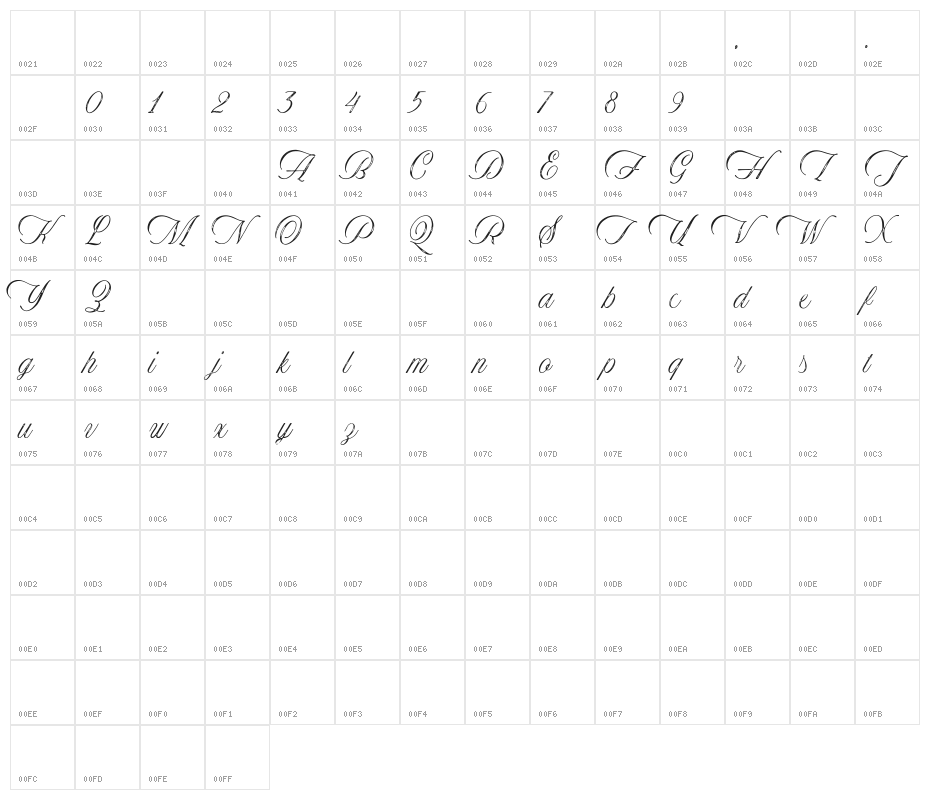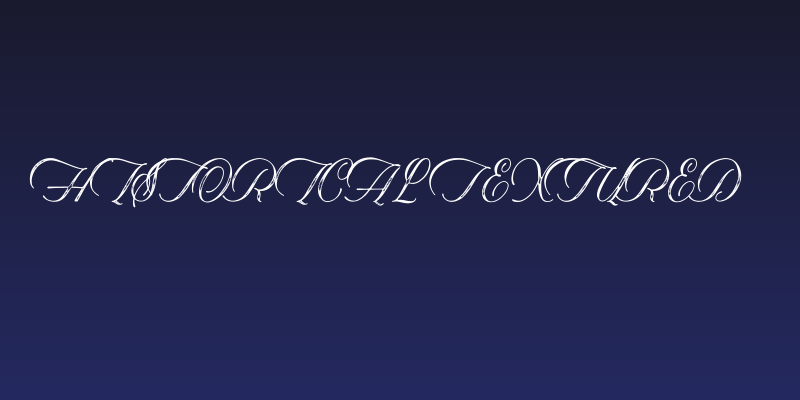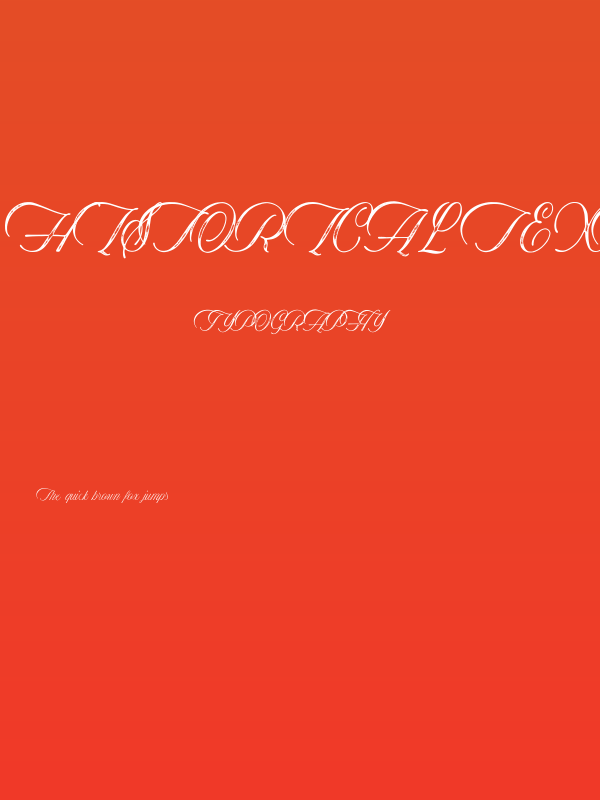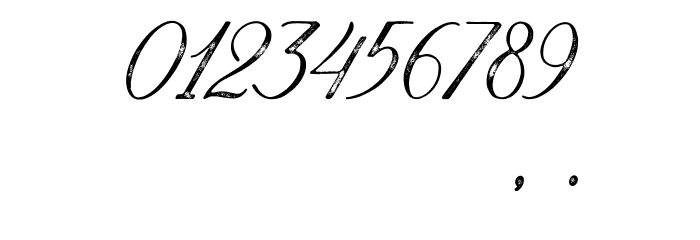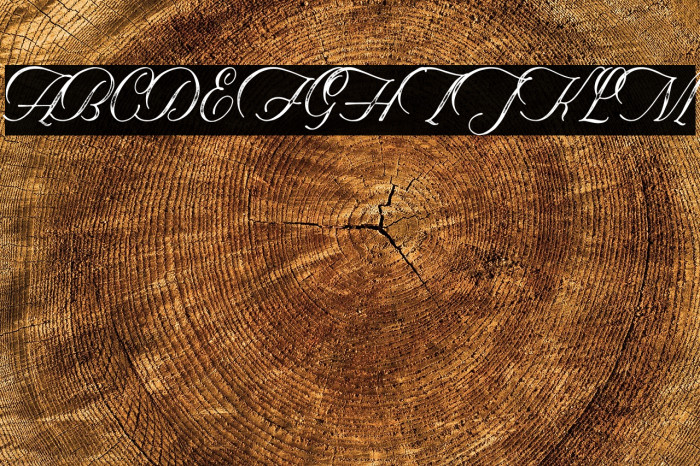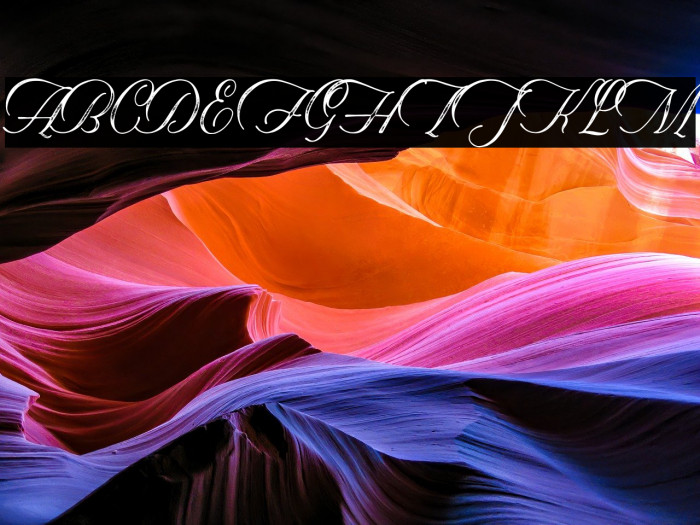
Historical-Textured Font
Historical-Textured Description
This font exudes a classic elegance with its cursive, handwritten style. The letters are gracefully connected, featuring a textured appearance that adds a vintage charm. The uppercase letters are ornate and flowing, while the lowercase letters maintain a consistent, smooth flow. The numerals and special characters are designed to match the overall aesthetic, providing a cohesive look. The texture within the strokes gives it a unique, aged feel, reminiscent of historical scripts. This font is perfect for projects that require a touch of sophistication and nostalgia.